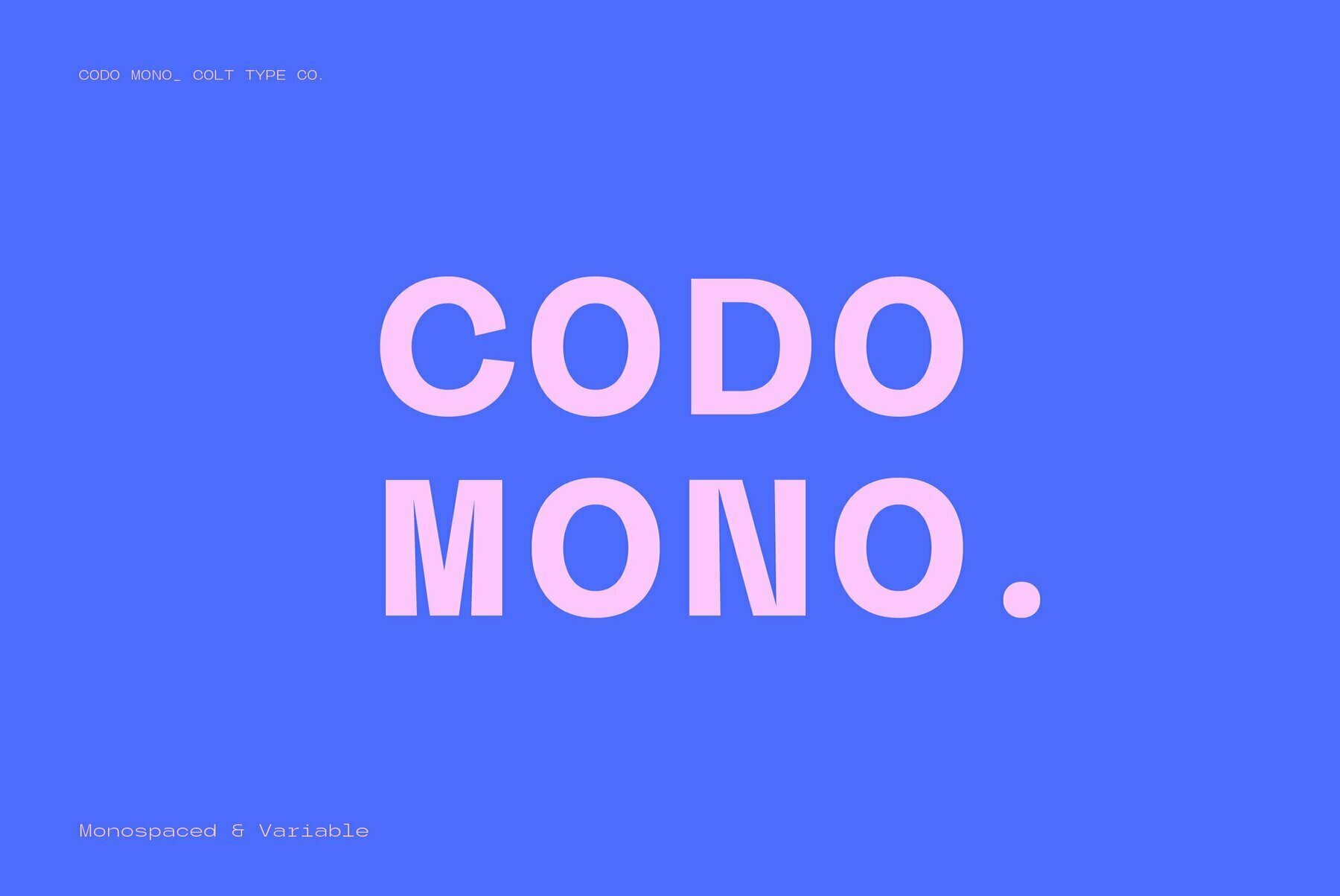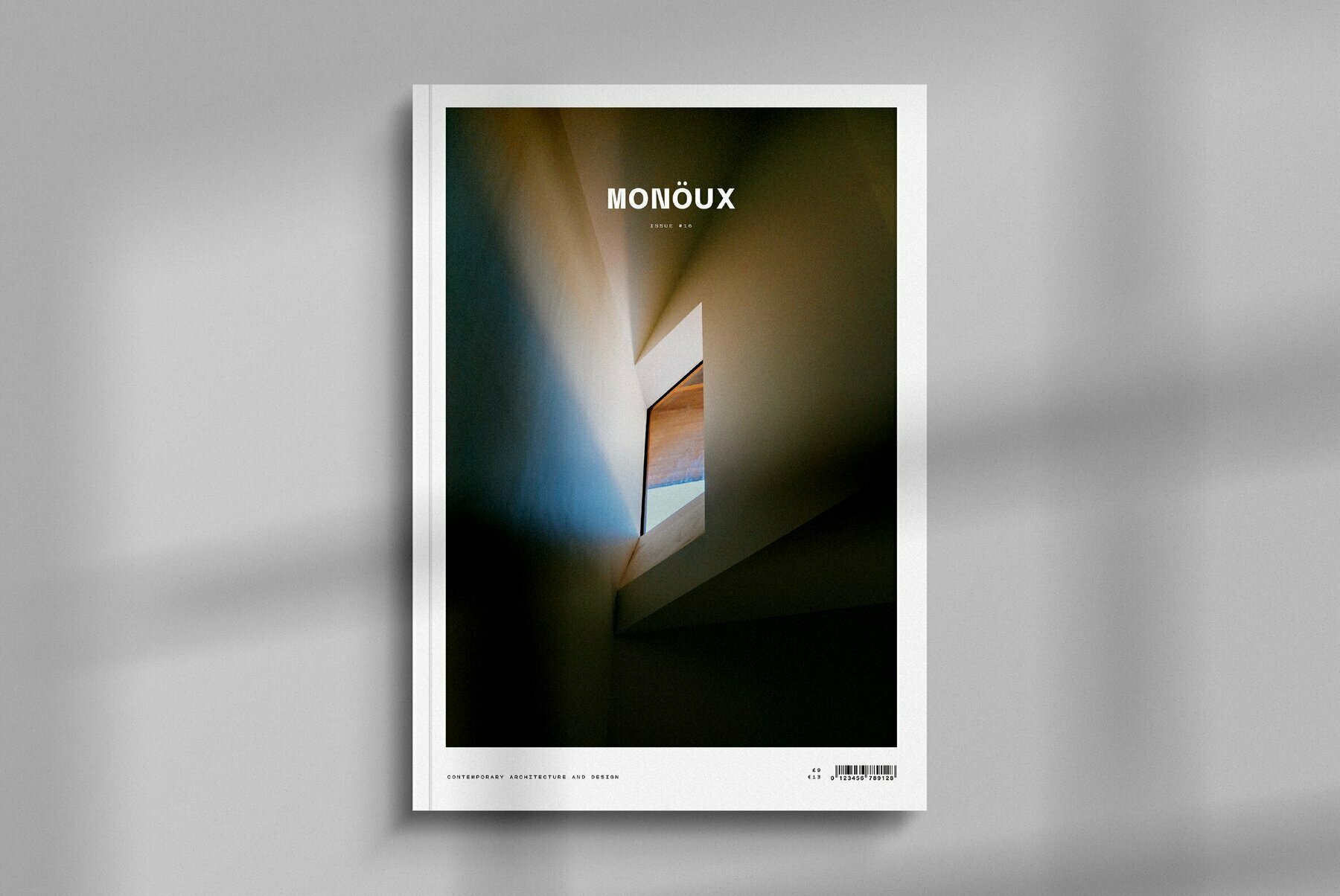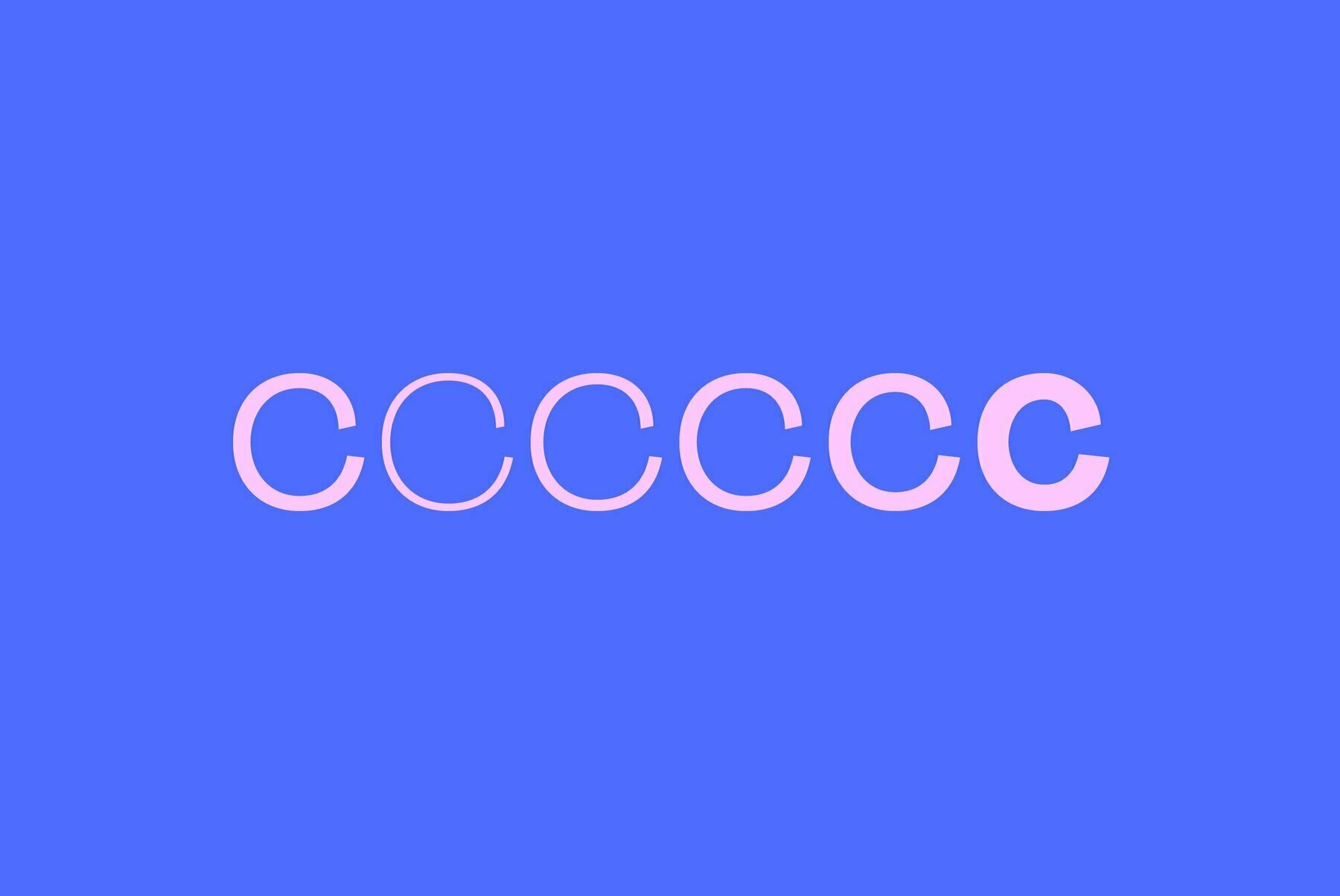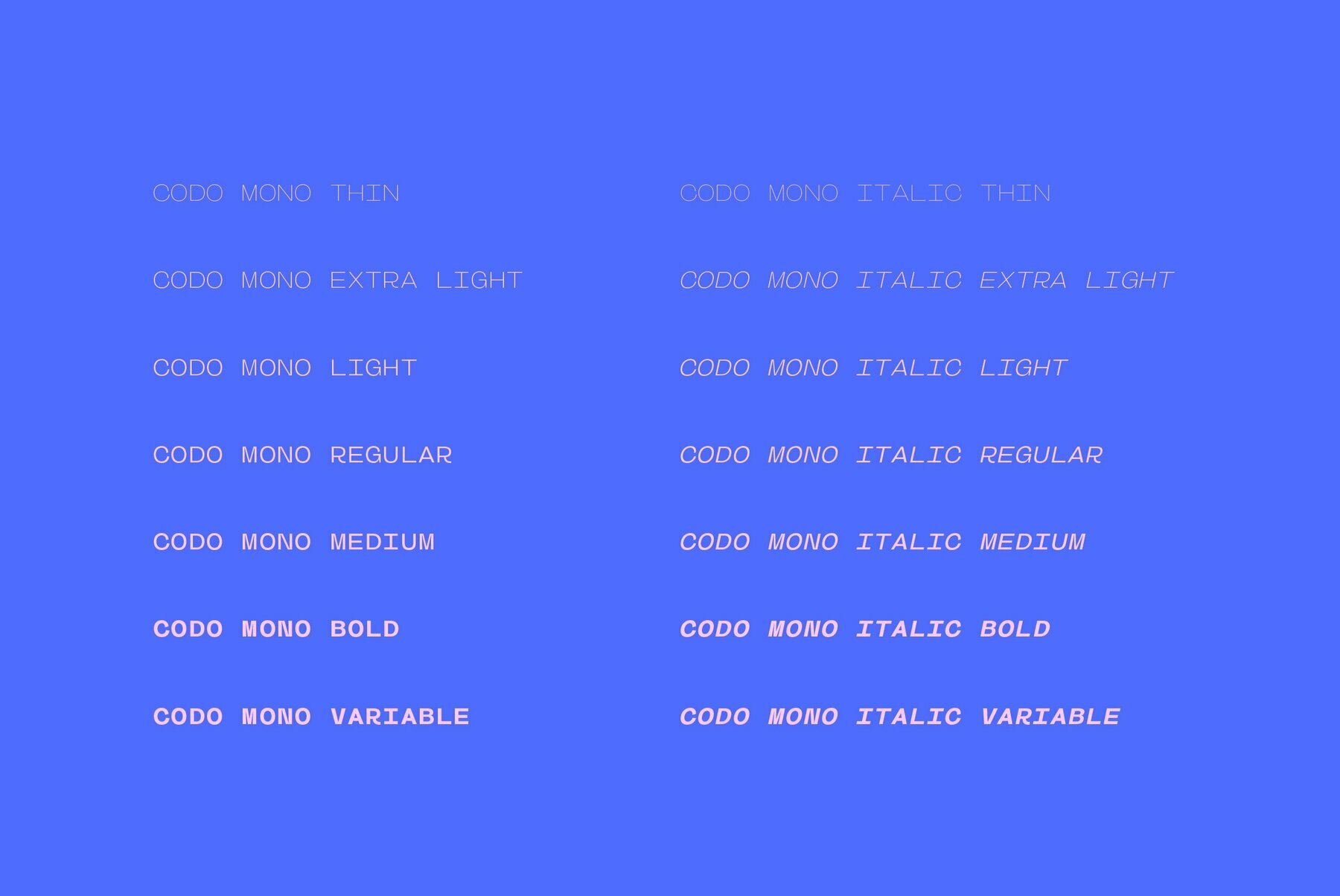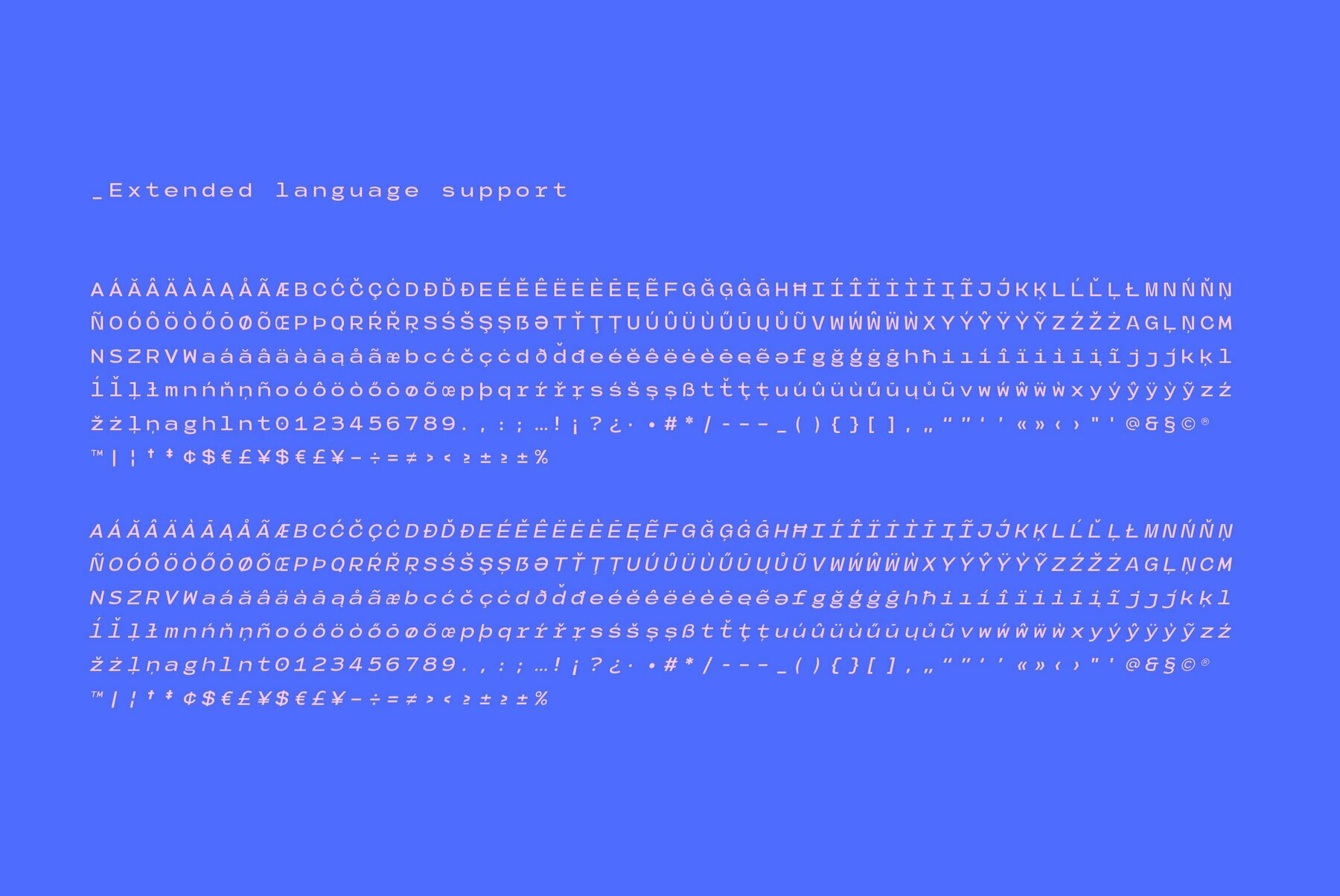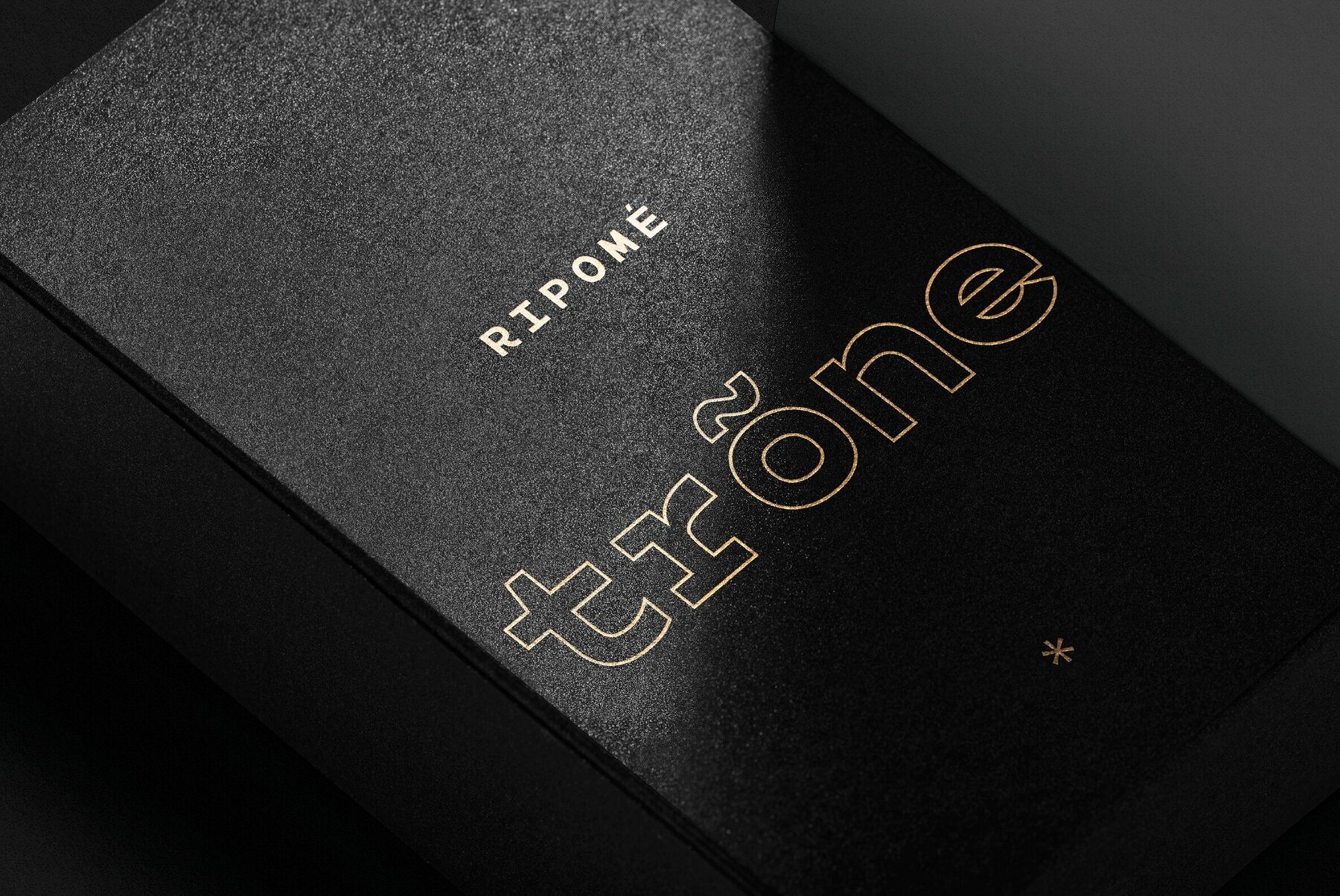
Codo Mono Font
Codo Mono modern monospace typeface that includes 14 fonts; Standard and italic styles, 6 weights + variable weight versions. Codo Mono is a carefully crafted monospaced typeface featuring stylistic alternatives to help your design or branding stand out.
This font has extensive Latin language support for Western, Central, and South-Eastern European. Designed to have great legibility with a modern feel, Codo Mono is well suited to branding, magazines, editorial copy, packaging, and more.